Ghost fonts aren’t just for Halloween anymore (though they absolutely shine during spooky season). These ethereal typefaces bring a haunting elegance to everything from horror movie posters to mysterious book covers, and yes, even sophisticated branding that wants to capture something otherworldly.
In this spine-tingling deep dive, we’ll explore the best ghost fonts that are making designers scream with delight in 2026. So dim the lights, grab your favorite caffeinated beverage, and let’s embark on this ghostly typographic adventure together!
The Most Hauntingly Beautiful Ghost Fonts of 2026
Not all ghost fonts are created equal – some are downright terrifying while others whisper elegance with ethereal grace. I’ve compiled a list of the most spine-chilling ghost fonts that are absolutely killing it right now:
Ghost Mansion
Ghost Mansion is a decorative font that embodies a spooky atmosphere with a playful twist. Its design incorporates food-related elements, making it perfect for Halloween-themed projects or quirky restaurant branding.
Ghostown
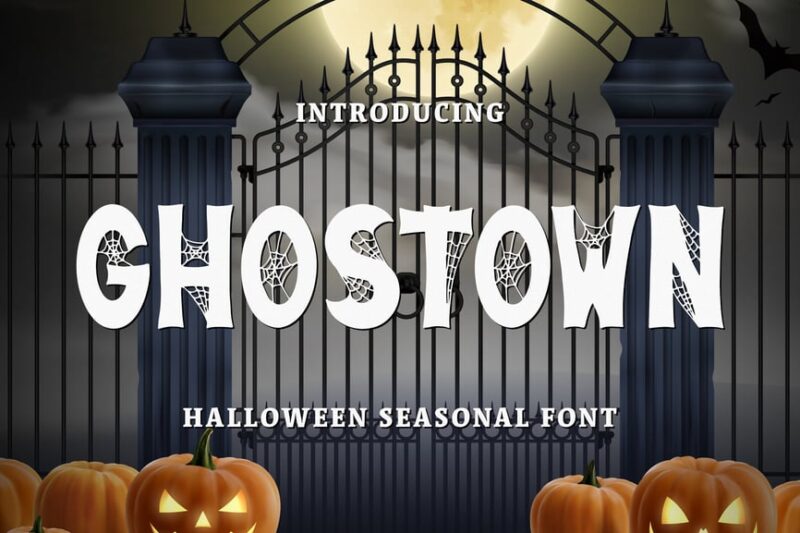
Ghostown is a decorative font that features blood-like splatters and creepy elements. This font is ideal for horror-themed designs, Halloween projects, or any work that requires a chilling, eerie aesthetic.
Ghost Place
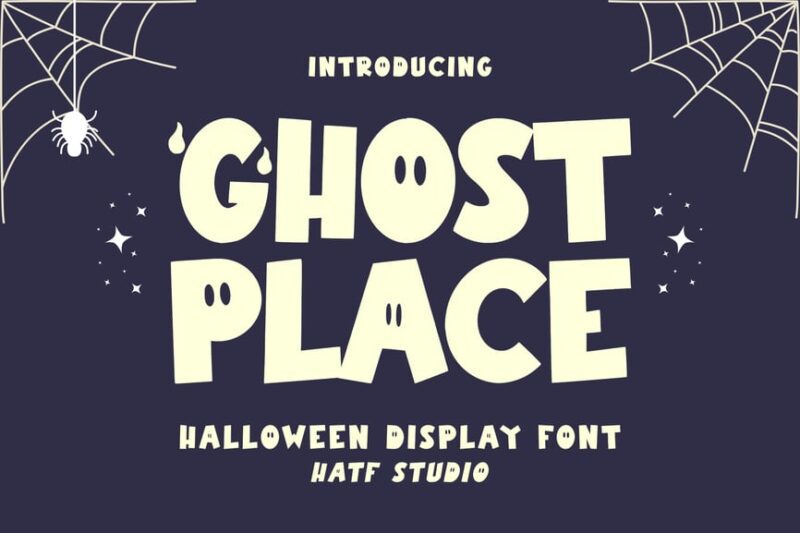
Ghost Place is a unique decorative font that surprisingly combines elements of skin care and comic styling. This versatile font can be used for both spooky designs and fun, lighthearted projects, offering a fresh take on ghostly typography.
Ghostem – Handwritten Horror Font
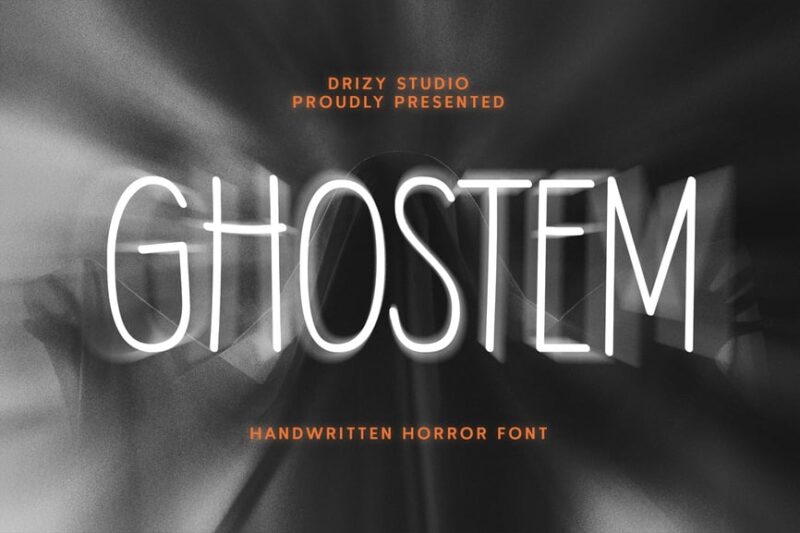
Ghostem is a handwritten smoky font that combines script and serif elements. Its display-worthy design makes it perfect for creating attention-grabbing headlines or titles in horror-themed projects or dark, atmospheric designs.
The Ghost – Haunted Display Typeface
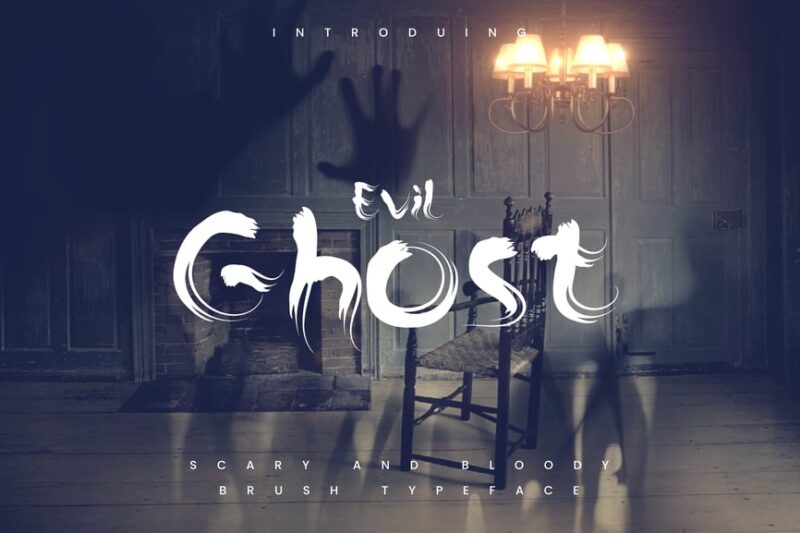
The Ghost is a haunting display typeface that features distorted, ghostly letterforms. This script and handwritten font is ideal for creating eerie, supernatural-themed designs, perfect for horror movie posters or Halloween event promotions.
Wandering Phantom
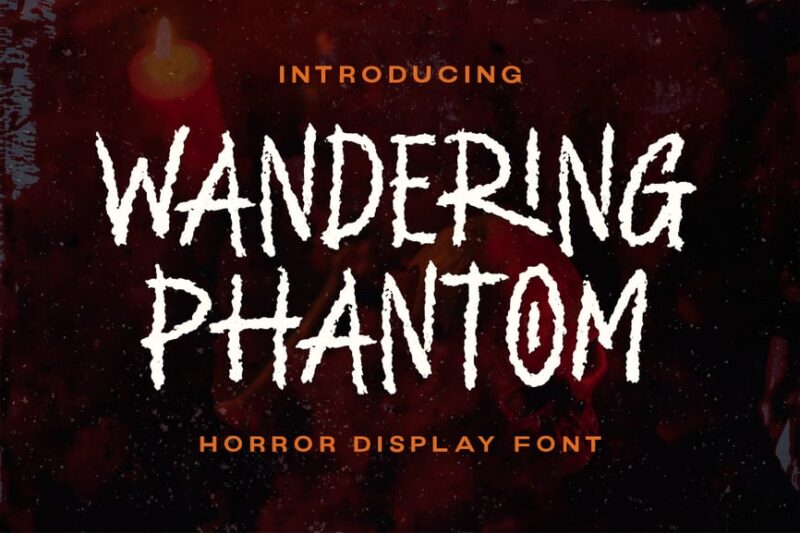
Wandering Phantom is a rough font that blends fantasy and gothic elements. Its mysterious and ethereal design makes it suitable for book covers, game titles, or any project requiring a touch of otherworldly charm.
GHOST DIED FONT
GHOST DIED FONT is a distorted, script-style font that embodies a spectral essence. Its handwritten appearance and ghostly distortions make it perfect for creating an unsettling atmosphere in horror-themed designs or Halloween projects.
Ghostery – Modern Halloween Font
Ghostery is a modern dripping font that combines decorative and script elements. Its spooky yet contemporary design makes it versatile for various Halloween-themed projects, from invitations to social media graphics.
Ghost Town – Game Display Font
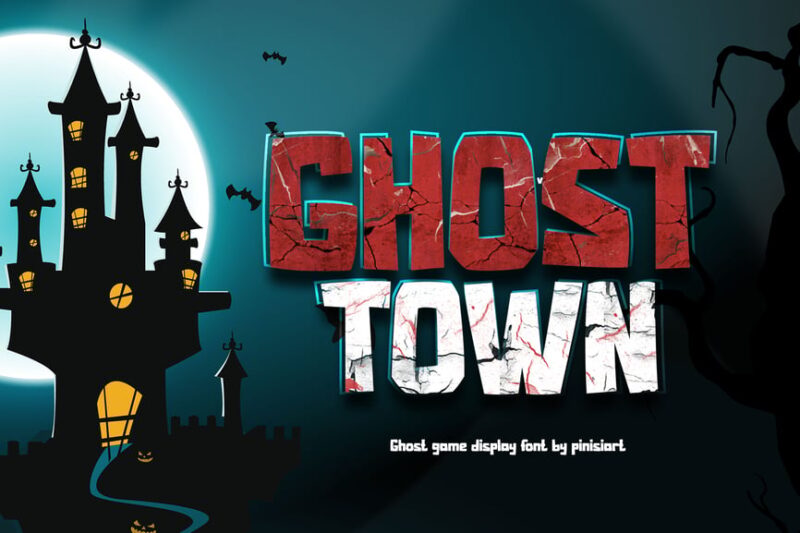
Ghost Town is a sans-serif display font designed for game interfaces and YouTube thumbnails. Its bold, thriller-inspired style makes it ideal for creating eye-catching titles in gaming content or suspense-themed designs.
Gummy Ghost
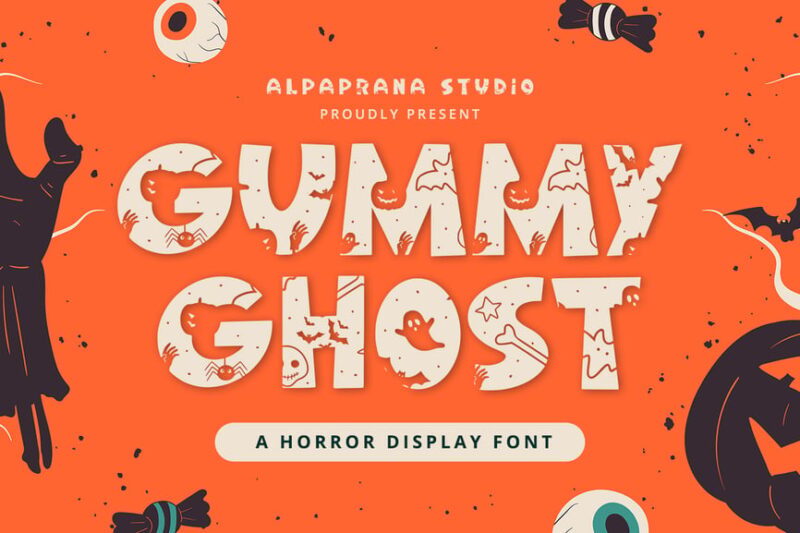
Gummy Ghost is a playful Halloween font that combines monster-like qualities with a gummy candy aesthetic. This unique display font is perfect for children’s Halloween designs, candy packaging, or any project requiring a fun, spooky touch.
Ghostoons – Spooky Fantasy Font
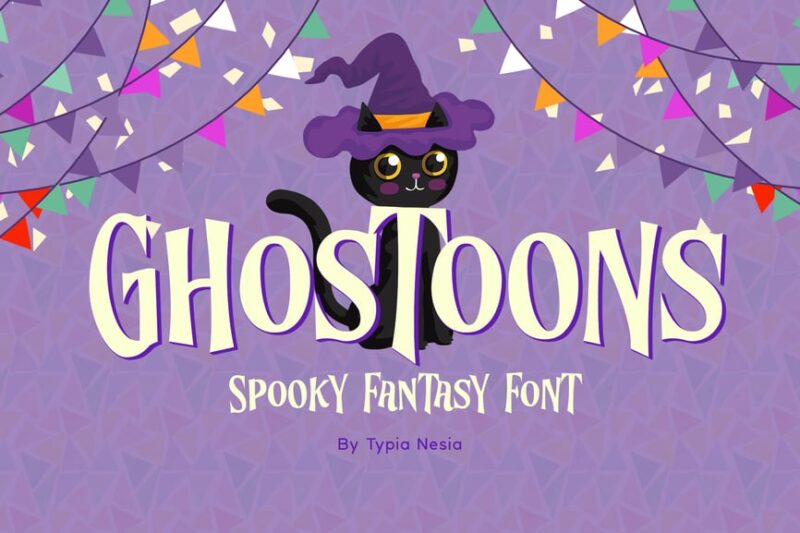
Ghostoons is a versatile font family that includes serif, sans-serif, and decorative styles. Its spooky and creepy design makes it suitable for a wide range of Halloween and fantasy-themed projects, from children’s books to horror movie posters.
Witchy
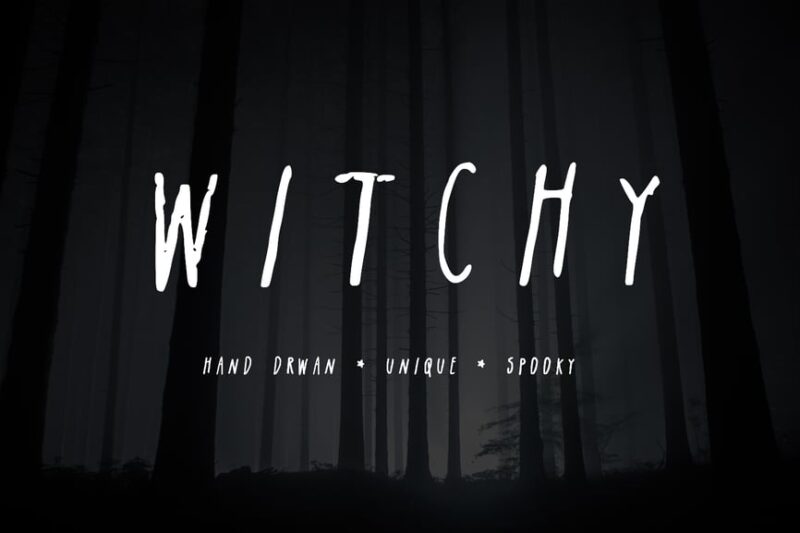
Witchy is a font that combines sans-serif and script styles with a Halloween and horror theme. Its versatile design makes it suitable for various spooky projects, from witch-themed branding to horror movie promotional materials.
Ghost Killer
Ghost Killer is a script and handwritten font designed for movie posters and promotional materials. Its bold, dramatic style is perfect for creating impactful titles in horror and thriller genres, capturing the essence of suspense and fear.
Ghost Story Font Duo
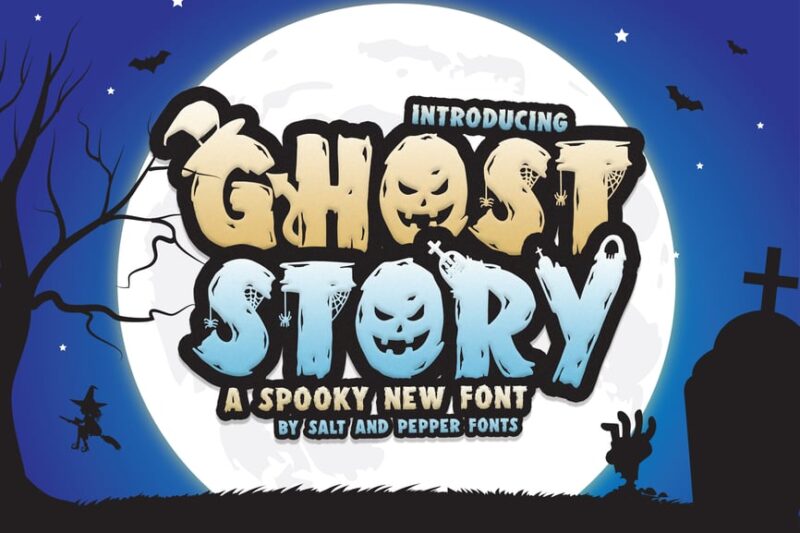
Ghost Story Font Duo is a combination of sans-serif and symbol fonts designed for Halloween-themed projects. This versatile pair offers both legible text options and spooky decorative elements, making it ideal for creating cohesive Halloween designs.
Ghostoona – Cute Handwritten Marker Sans Font
Ghostoona is a cute, handwritten marker-style sans font with a ghostly twist. Its playful design makes it perfect for children’s Halloween projects, friendly ghost characters, or any design requiring a whimsical, spooky touch.
Ghostly – Halloween Typeface
Ghostly is a Halloween typeface that combines sans-serif and decorative elements. Its creepy design makes it ideal for creating eerie atmospheres in various Halloween-themed projects, from party invitations to haunted house promotions.
Grimfay – Horror Cartoon Movie Creepy Halloween
Grimfay is a decorative font designed for horror cartoon movies and Halloween themes. Its monster-inspired letterforms make it perfect for creating spooky, yet slightly cartoonish titles and headers in various Halloween and horror projects.
Ghoust Handwritten
Ghoust Handwritten is a symbol font featuring scratchy, brutal letterforms. Its raw, handmade appearance makes it ideal for creating an authentic, DIY look in horror-themed designs or grunge-style projects.
Ghostbumps – Scary Display Font
Ghostbumps is a scary display font with a wavy style. Inspired by the popular “Goosebumps” series, this font is perfect for creating chilling titles in children’s horror books, Halloween event posters, or spooky-themed merchandise.
Ghost Town Spooky Display Font
Ghost Town is a spooky serif display font designed for branding and titling. Its eerie yet elegant design which looks like it was drawn with a pencil or a marker, makes it suitable for upscale Halloween events, gothic-inspired branding, or any project requiring a sophisticated touch of the supernatural.
Gorosei
Gorosei is a decorative font with a spooky theme. Its unique design incorporates ghostly elements, making it ideal for creating eye-catching titles in horror-themed projects, Halloween event promotions, or eerie brand identities.
Scaryous
Scaryous is a decorative font that combines spooky and ghostly elements. Its playful yet eerie design makes it perfect for children’s Halloween projects, ghost-themed branding, or any design requiring a balance of fun and fright.
Ghost Night
Ghost Night is a retro-inspired font designed for Halloween and creepy-themed projects. Its haunting letterforms evoke a sense of mystery and unease, making it ideal for creating atmospheric titles in horror movies, ghost tours, or Halloween events.
Ghostphobia
Ghostphobia is a decorative and script font with a Halloween and scary theme. Its hand-drawn style and ghostly elements make it perfect for creating a personal, authentic touch in horror-themed designs or Halloween party invitations.
Ngerui Ghost – Horror Display Font
Ngerui Ghost is a horror display font that combines sans-serif and decorative elements. Its bold, distressed design makes it ideal for creating impactful titles in horror movie posters, Halloween event promotions, or any project requiring a strong, scary presence.
The Flesh – Horror Spooky Font
The Flesh is a horror-inspired outline font with a spooky twist. Its unsettling design evokes a sense of dread and fear, making it perfect for creating chilling atmospheres in horror game interfaces, scary movie titles, or Halloween-themed designs.
Ghostmark
Ghostmark is a decorative font that blends gothic and horror elements. Its intricate, spectral design makes it ideal for creating sophisticated yet eerie titles in gothic literature, dark fantasy games, or high-end Halloween event branding.
Spooky Laboratory
Spooky Laboratory is a decorative font designed for Halloween and scary-themed projects. Its quirky, science-gone-wrong aesthetic makes it perfect for creating titles in mad scientist-themed Halloween parties, horror game interfaces, or spooky children’s books.
Melted Ghost – Special Halloween Font
Melted Ghost is a special Halloween font with a unique melted appearance. Its hot, liquefied design adds a fresh twist to ghostly typography, making it ideal for creating eye-catching titles in Halloween candy packaging, spooky ice cream branding, or summer horror events.
What Makes Ghost Fonts Feel So Supernatural?
Ghost fonts get their spine-tingling, otherworldly personality from several key design elements that make them feel like they’ve materialized from another realm:
Transparent and Faded Elements
The most obvious characteristic of ghost fonts is their translucent quality. These typefaces often feature semi-transparent letterforms, faded edges, or hollow centers that create the illusion of text that’s not quite there. It’s like the letters are trying to manifest themselves but can’t quite make it into our physical world.
This transparency creates an immediate sense of mystery and otherworldliness that’s perfect for designs that need to feel ethereal or supernatural.
Wispy, Flowing Details
Many ghost fonts incorporate flowing, smoke-like details that seem to drift away from the main letterforms. These wispy elements might appear as trailing serifs, flowing ascenders, or misty textures that give the impression of ectoplasm or spiritual energy.
The effect is mesmerizing – like watching fog roll across a moonlit cemetery.
Distressed and Weathered Textures
Ghost fonts often feature distressed edges, worn textures, or aged appearances that suggest they’ve been around for centuries. This weathered quality adds to their haunting appeal, making them feel like messages from the past.
Irregular Baselines and Floating Elements
Just like actual ghosts, these fonts don’t always follow the rules of physics. Letters might float at different heights, baselines might waver mysteriously, and some elements might appear to hover independently. This creates a supernatural sense of movement and otherworldly presence.
Where Can You Use Ghost Fonts?
Ghost fonts are surprisingly versatile, though their supernatural charm makes them particularly perfect for certain applications:
Horror and Thriller Branding
Obviously, ghost fonts are a natural choice for horror movies, thriller novels, haunted attractions, and anything else in the spooky entertainment space. They instantly communicate the genre and set the right eerie mood.
Halloween and Seasonal Designs
From party invitations to seasonal marketing campaigns, ghost fonts are essential for capturing that perfect Halloween atmosphere. They work beautifully for everything from trick-or-treat signage to autumn festival promotions.
Mystery and Gothic Themes
Ghost fonts excel in designs for mystery novels, gothic architecture firms, paranormal investigation services, or any brand that wants to capture an air of intrigue and mystery.
Luxury with an Edge
Surprisingly, ghost fonts can work beautifully for high-end brands that want to stand out from traditional luxury typography. Think boutique perfume brands, exclusive nightclubs, or avant-garde fashion labels.
Gaming and Entertainment
The gaming industry loves ghost fonts for titles, UI elements, and promotional materials – especially for horror games, fantasy RPGs, or any title with supernatural themes.
Album Covers and Music Branding
Musicians in genres like metal, gothic rock, or electronic music often gravitate toward ghost fonts for their ethereal, atmospheric quality.
Where to Avoid Ghost Fonts
While ghost fonts are fantastic for creating atmosphere, there are definitely contexts where their supernatural charm might not be appropriate:
Professional Corporate Settings
Unless you’re designing for a business that specifically deals with the supernatural, ghost fonts probably won’t convey the trustworthiness and stability that most corporate clients are looking for.
Children’s Content (Usually)
While some kids love spooky themes, ghost fonts might be too frightening for young children’s books, educational materials, or family-friendly brands.
Medical and Healthcare
Ghost fonts could send the wrong message in medical contexts where you want to convey life and health rather than… well, ghostly apparitions.
Financial Services
Similar to corporate settings, financial institutions need to project stability and trust – qualities that ghost fonts don’t typically embody.
How to Choose the Perfect Ghost Font
Selecting the right ghost font requires considering several supernatural factors:
Level of Spookiness
Ghost fonts range from subtly ethereal to downright terrifying. Consider your audience and context. A luxury brand might want something mysteriously elegant, while a horror movie needs maximum fear factor.
Readability vs. Atmosphere
Some ghost fonts prioritize atmospheric effect over legibility. Make sure your chosen font can actually be read at the sizes you’ll be using it, especially for body text or important information.
Cultural Sensitivity
Be mindful that supernatural themes can be sensitive topics in some cultures or contexts. What feels playfully spooky to some might be genuinely unsettling to others.
Pairing Potential
Consider how your ghost font will work with other typefaces in your design. Often, ghost fonts work best as display fonts paired with clean, readable fonts for body text.
Fantastic Ghost Font Alternatives
If ghost fonts feel too supernatural for your project but you still want that mysterious, atmospheric vibe, consider these alternatives:
Distressed Fonts
Fonts with worn, aged textures can provide mystery without the supernatural overtones. They suggest history and intrigue without floating into ghost territory.
Blackletter and Gothic Fonts
These traditional styles bring drama and atmosphere while maintaining readability and historical gravitas.
Art Deco Display Fonts
For a more sophisticated mysterious vibe, Art Deco fonts can provide elegance with just a hint of the otherworldly.
Handwritten Horror Fonts
Script fonts that look like they were written in haste or fear can provide spookiness with a more human touch.
Expert Opinions: Typography Designers on Ghost Fonts
I reached out to some leading typography designers to get their take on the ghost font phenomenon:
Sarah Chen, Creative Director at SpectralType Studio, explains: “Ghost fonts tap into something primal in human psychology. The transparency and ethereal quality triggers our fascination with the unknown. When used skillfully, they can create incredibly powerful emotional responses.”
Michael Torres, Horror Branding Specialist, notes: “What I love about modern ghost fonts is how they’ve evolved beyond just Halloween novelty. Today’s designers are creating sophisticated ghost fonts that can work year-round for brands that want to embrace mystery and intrigue.”
Dr. Elena Rodriguez, Typography Psychology Researcher, observes: “The visual elements that make ghost fonts work – transparency, irregular spacing, flowing details – actually mirror how our brains process memories and dreams. There’s a neurological reason why these fonts feel so otherworldly.”
Common Ghost Font Questions
Let’s address some frequently asked questions about ghost fonts:
Are ghost fonts hard to read? It depends on the font and how it’s used. Some ghost fonts prioritize atmosphere over legibility, so they’re best used for headlines and display text rather than body copy. Always test readability at your intended size.
Can I use ghost fonts for commercial projects? Most commercial ghost fonts can be used for business purposes, but always check the license agreement. Some fonts have restrictions on commercial use or require additional licensing fees.
Do ghost fonts work in digital designs? Absolutely! Many ghost fonts are specifically designed for digital use and can create stunning effects on websites, apps, and social media graphics. Just ensure they render properly across different devices and browsers.
What’s the difference between ghost fonts and horror fonts? While there’s overlap, ghost fonts specifically focus on ethereal, supernatural qualities like transparency and floating elements. Horror fonts might include any scary typeface, including bold, aggressive styles that aren’t necessarily ghostly.
The Psychology Behind Ghost Fonts
There’s something fascinating about why ghost fonts work so well psychologically. The transparency and ethereal quality tap into our deep-seated fascination with the unknown and the supernatural. These fonts create visual metaphors for mystery, memory, and the spaces between the known and unknown.
The irregular spacing and floating elements mirror how we actually experience supernatural encounters in stories and films – things that don’t quite behave according to normal rules. This creates an immediate emotional response that can be incredibly powerful in the right context.
Conclusion: Embracing the Supernatural in Typography
Ghost fonts represent one of the most atmospheric categories in typography. They’re not just letters on a page – they’re mood-setters, storytellers, and mood-weavers that can transform ordinary text into something truly supernatural.
From the subtly ethereal to the spine-chillingly obvious, ghost fonts offer designers a unique way to add mystery, atmosphere, and otherworldly charm to their projects. Whether you’re designing for Halloween, creating a horror movie poster, or just want to add some mysterious elegance to a luxury brand, there’s a ghost font out there waiting to haunt your designs in the best possible way.
The key is choosing wisely and using these supernatural typefaces thoughtfully. When used well, ghost fonts don’t just communicate information – they create experiences. They make viewers feel something, whether that’s a delicious shiver of fear or a sense of ethereal beauty.
So go ahead, let your designs get a little haunted. After all, in the world of typography, sometimes the most memorable designs are the ones that feel like they’re not entirely of this world.
And remember, in the realm of ghost fonts, the best designs are the ones that leave viewers wondering: “Was that text always there, or did it just… materialize?”